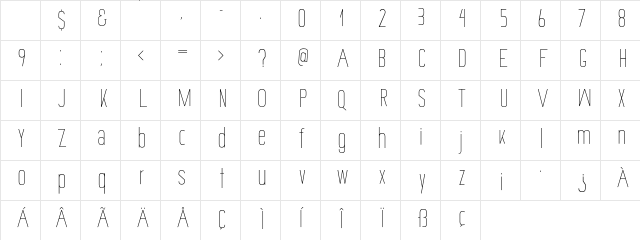
Allegro Regular
Design Context for Allegro Typeface
Allegro takes a measured approach to typography — its balanced proportions and neutral character make it a reliable workhorse for both digital and print work.
Pro Tip: Use Allegro in both headline and body roles to test its range before committing to a single application.